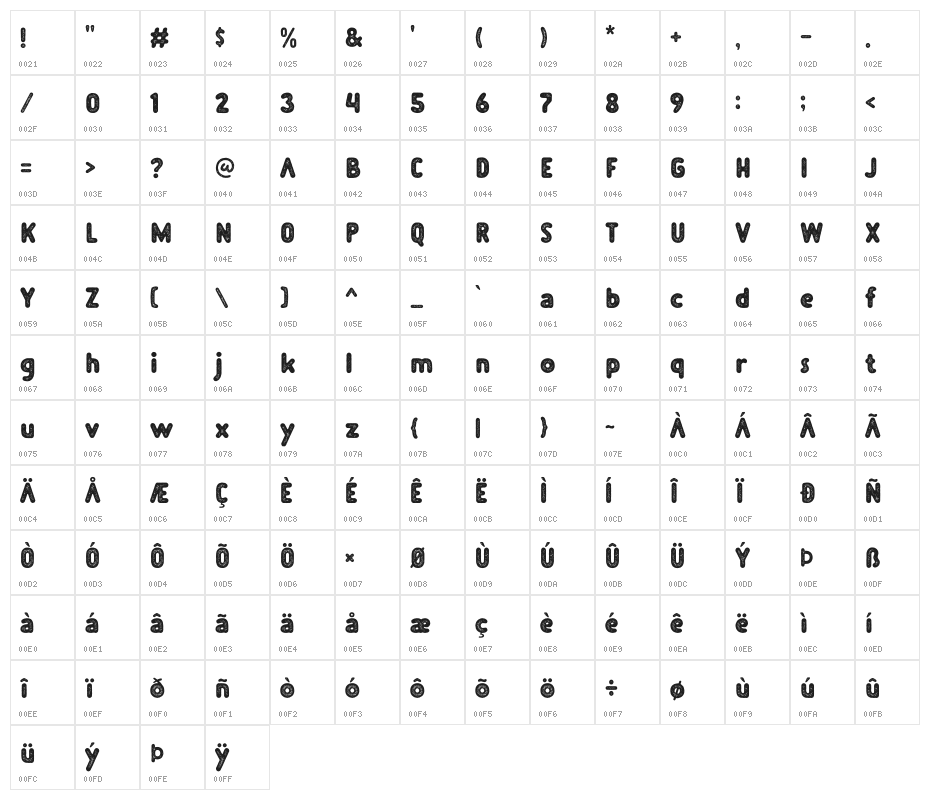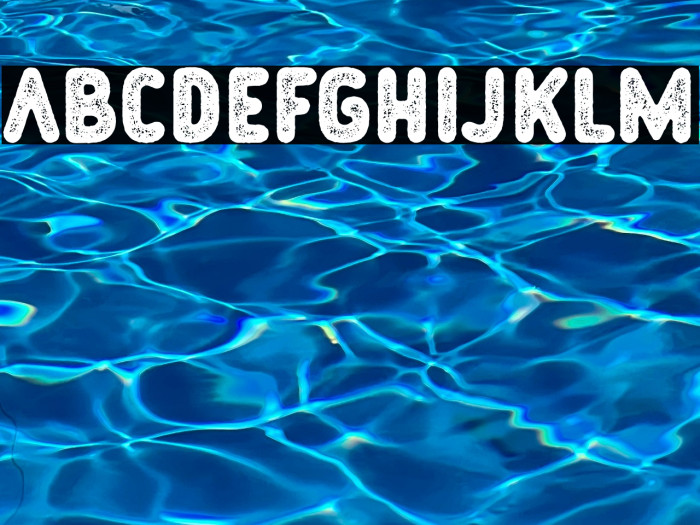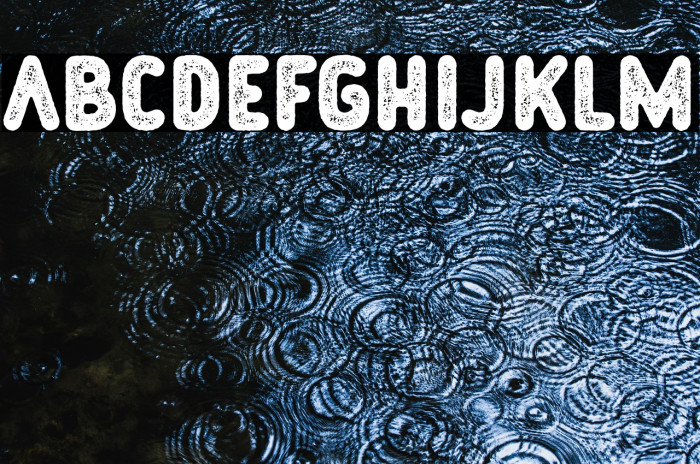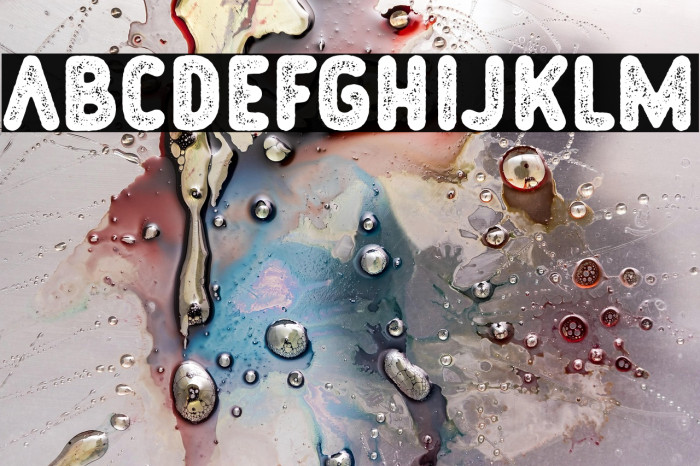
Plopin Rough Font
Plopin Rough Description
This font features a bold and playful design with a rough, textured appearance that gives it a handcrafted feel. The characters are rounded and slightly irregular, adding to the casual and approachable aesthetic. The texture within each letter creates a sense of depth and movement, making it stand out in any design. The font maintains a consistent weight throughout, ensuring readability while still offering a unique visual appeal. Its style is versatile, suitable for projects that require a touch of whimsy and creativity.
| Use Case | Logos, Headlines, Posters |
| Proposed Projects | Ideal for children's books, playful branding, posters, and creative social media graphics. |